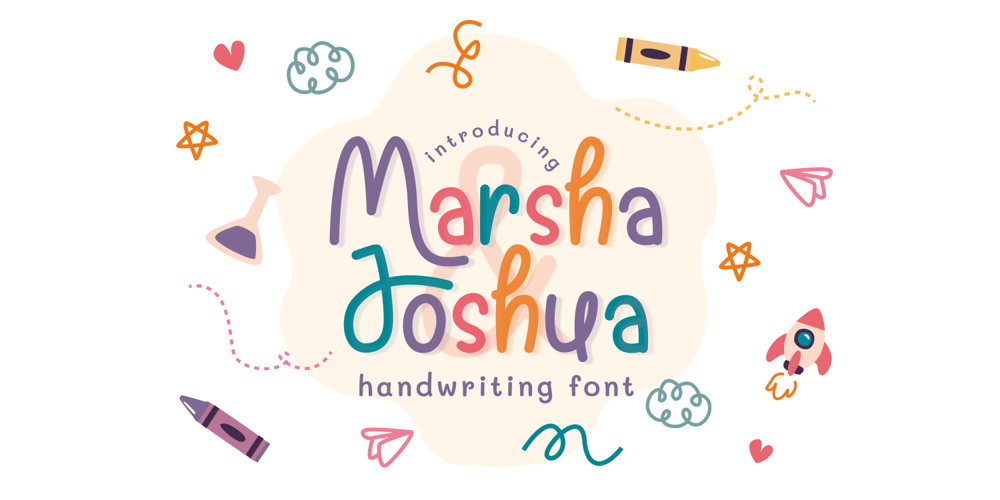
Marsha & Joshua
Marsha & Joshua font
Marsha & Joshua Font Family was designed by Miftahul Habib and published by Tlatous Type. Marsha & Joshua contains 1 styles and family package options. Marsha & Joshua! A sweet handwritten font that will add fun to your creativity. the font consist of a charming all-caps font and a sweet handwritten script font for the perfect and fun blend of your content.Marsha & Joshua has also added 26 doodles to add interest to your content in separate files.Each font file includes uppercase, lowercase, numbers, punctuation, and multilingual support.That’s it! I hope you enjoy it.Feel free to comment if there are issues or queries.You can also say hi to me on Instagram: https://www.instagram.com/tlatoustype/Thank You!